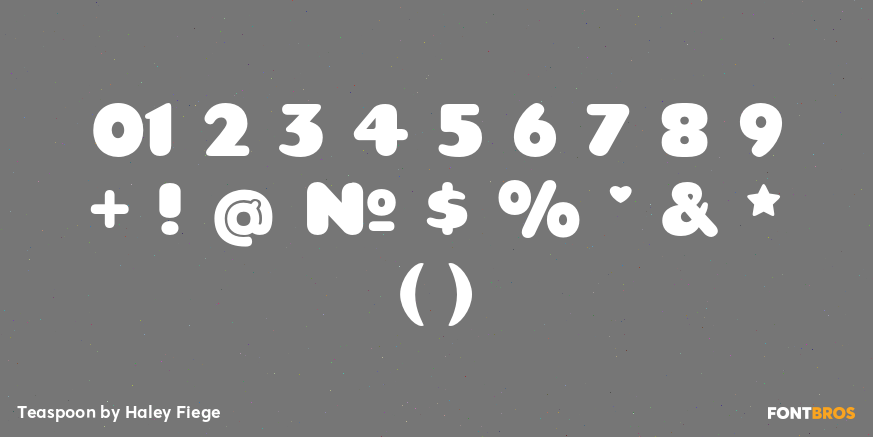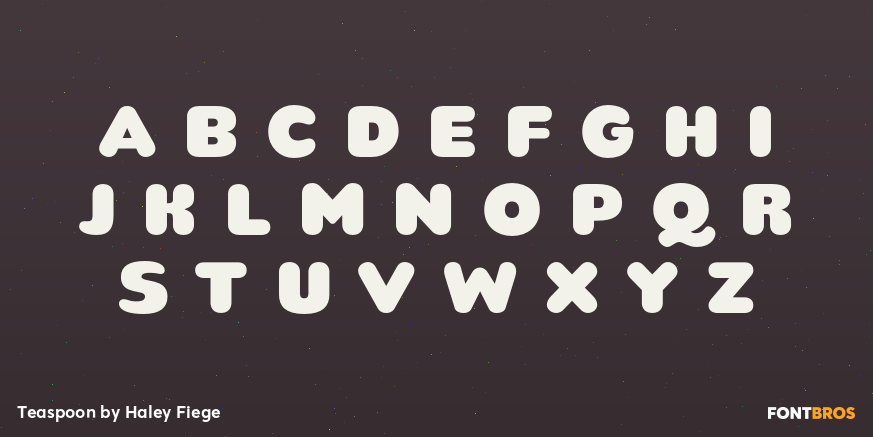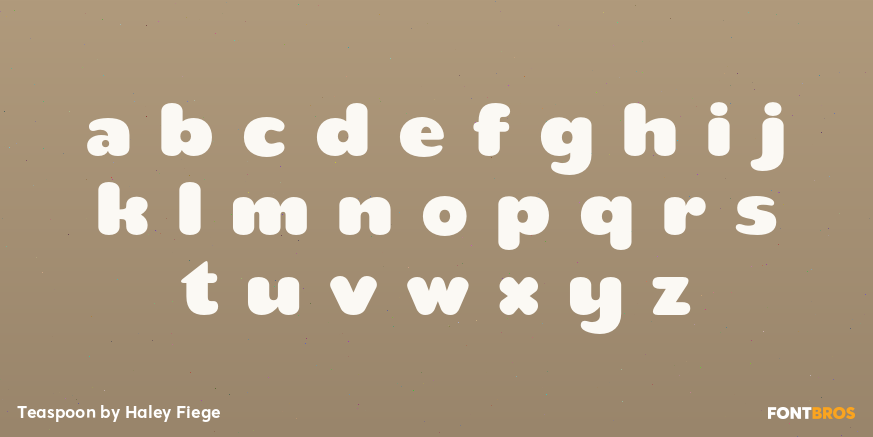
Teaspoon
Font Family by Haley Fiege
Teaspoon is a playful display font with a sweet, kid-friendly feel and a fun, slightly wacky personality. Its cheerful look gives words an easy sense of charm, making it a natural fit for designs that want to feel lighthearted, cute, and approachable.
Use it when you want typography to bring a sense of fun to the page—think children’s products, party pieces, playful branding, classroom materials, social graphics, crafts, or packaging that needs a softer, more whimsical voice. It also works well anywhere a casual decorative touch can make the message feel more inviting.